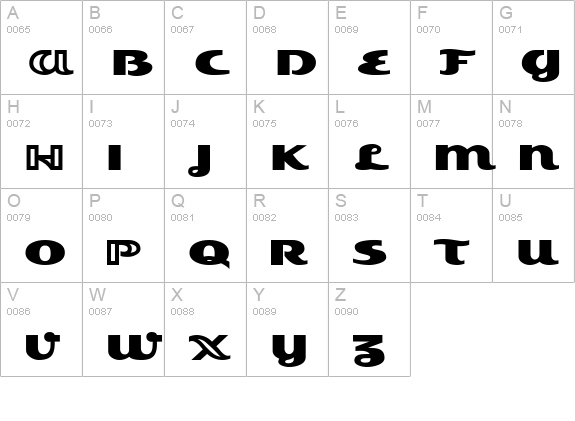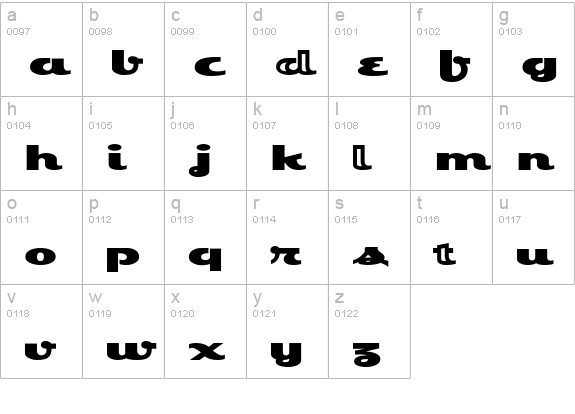
Esquivel Trial Font Details
Esquivel Trial font is a modern and elegant typeface that embodies sophistication and creativity. With its sleek lines and unique flourishes, this font is sure to make a statement in any design project. The Esquivel Trial font offers a perfect balance between traditional and contemporary styles, making it versatile for various applications such as branding, packaging, invitations, and more. What sets Esquivel Trial font apart is not only its stunning aesthetics but also the fact that it is available for free download at FontsMarket.com. This means that designers and creatives can easily access this high-quality font without any cost, making it a valuable asset for any design arsenal. Whether you're looking to add a touch of elegance to your next project or simply want to experiment with a new typeface, Esquivel Trial font is the perfect choice. Download it today and elevate your designs with this exquisite font.